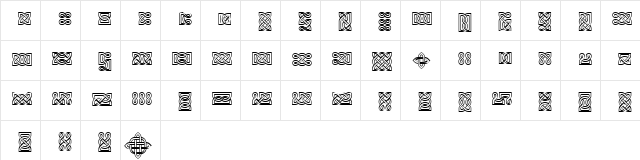
VTCeltia KnotsWhite Regular
Design Context for VTCeltia KnotsWhite Typeface
VTCeltia KnotsWhite is a composed and adaptable typeface that performs quietly and consistently across a wide range of design contexts.